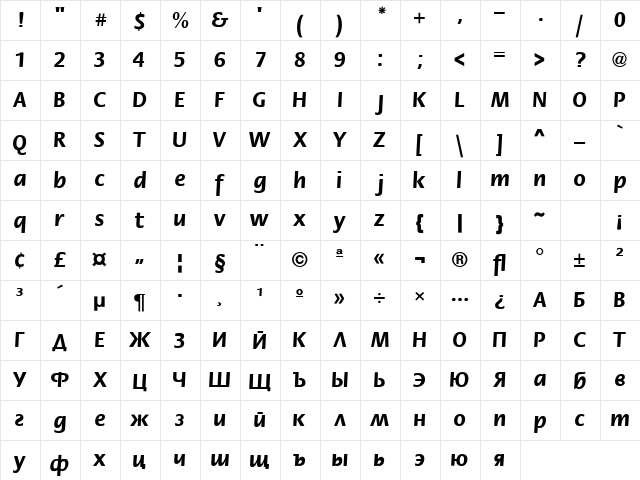
Flower Rus Bold
Design Context for Flower Rus Typeface
Flower Rus takes a measured approach to typography — its balanced proportions and neutral character make it a reliable workhorse for both digital and print work. Its bold stroke weight gives it real presence on the page.
Pro Tip: Use Flower Rus in both headline and body roles to test its range before committing to a single application.